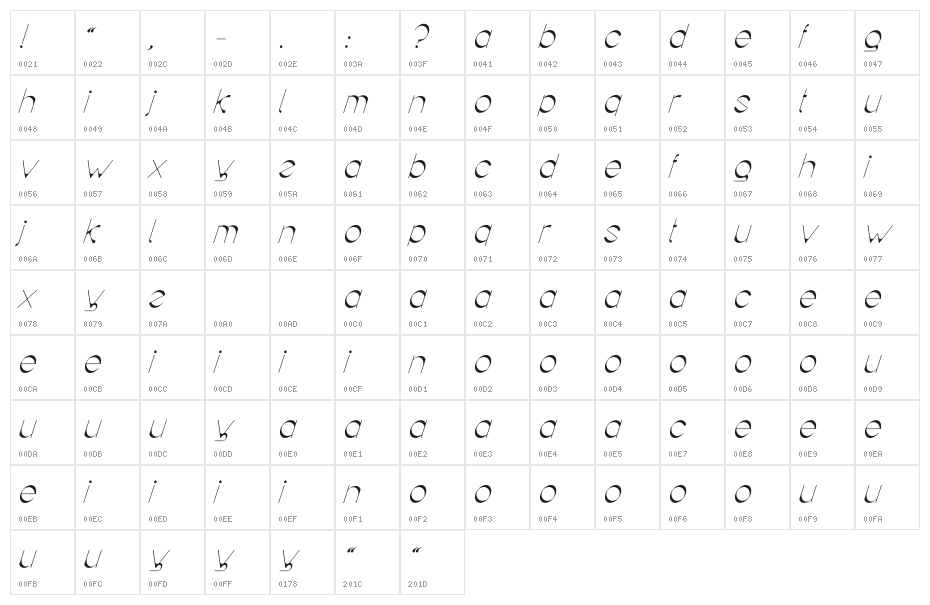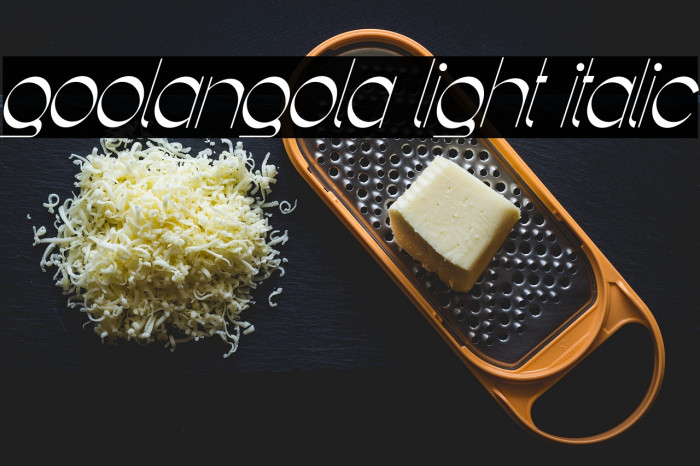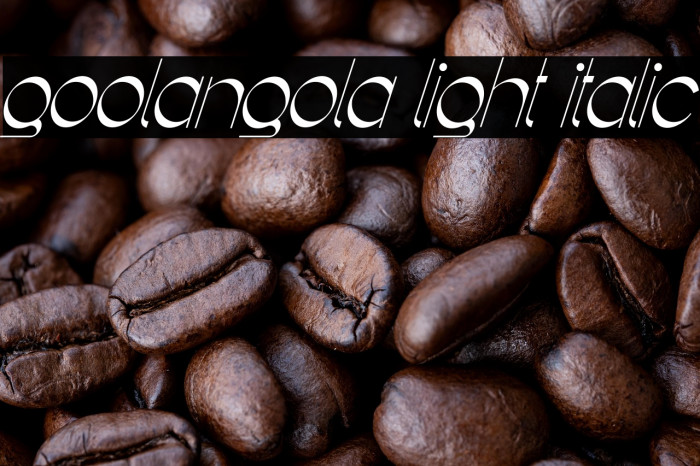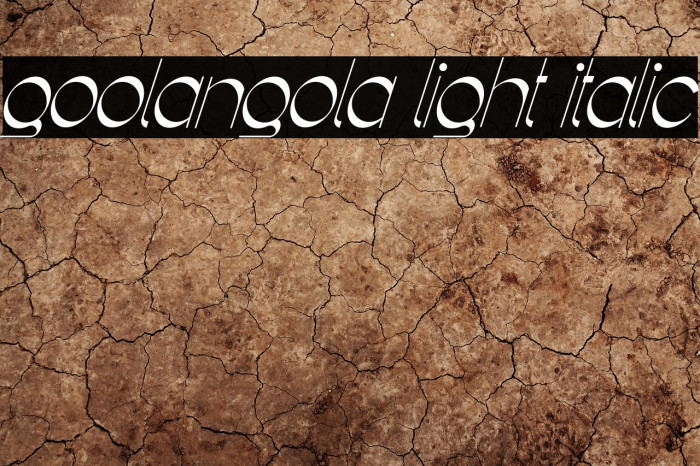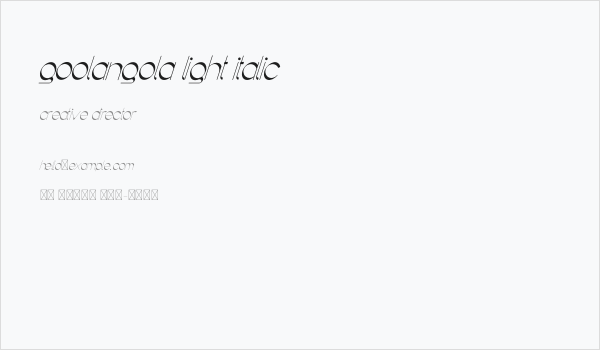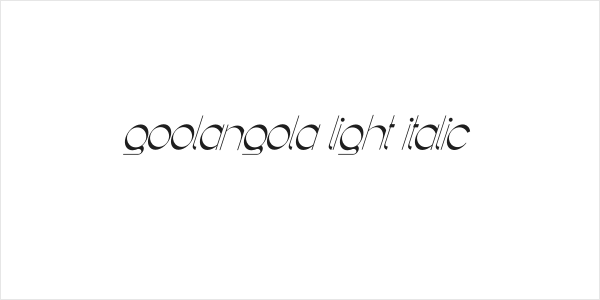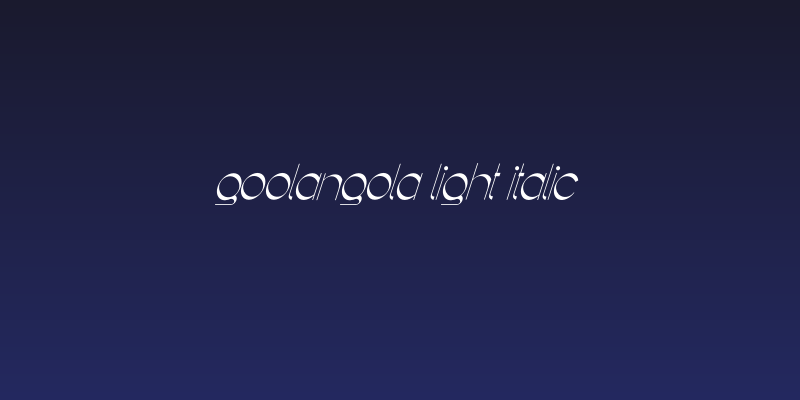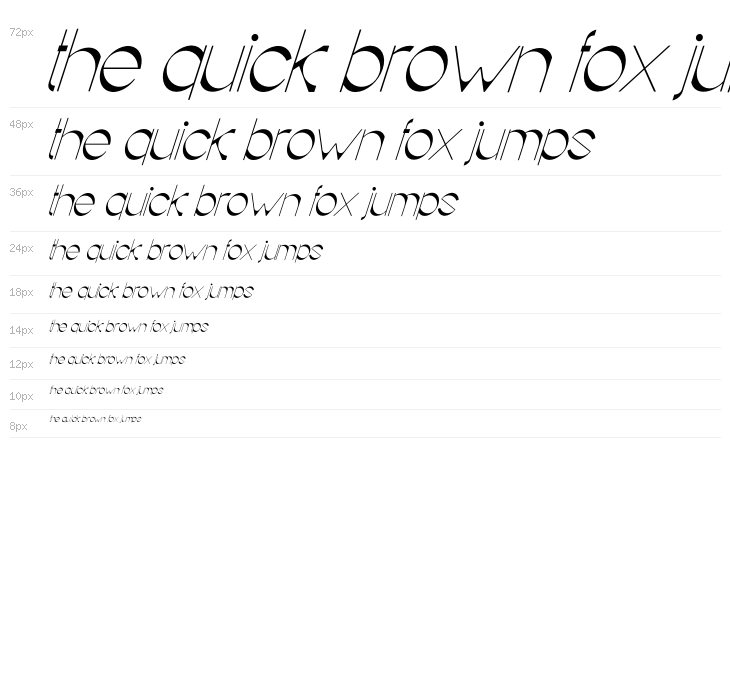
Goolangola Light Italic Font
Goolangola Light Italic Description
This font exhibits a sleek and modern design with a distinct italic slant, giving it a dynamic and fluid appearance. The characters are elegantly elongated, with a consistent stroke width that adds to its contemporary feel. The font maintains a clean and sophisticated look, making it suitable for a variety of design applications. Its unique style is characterized by smooth curves and sharp angles, providing a sense of movement and energy. The spacing between characters is balanced, ensuring readability while maintaining its stylish aesthetic.
| Use Case | Logos, Headlines, Editorial design |
| Proposed Projects | Ideal for fashion branding, modern advertising, dynamic posters, and creative editorial layouts. |